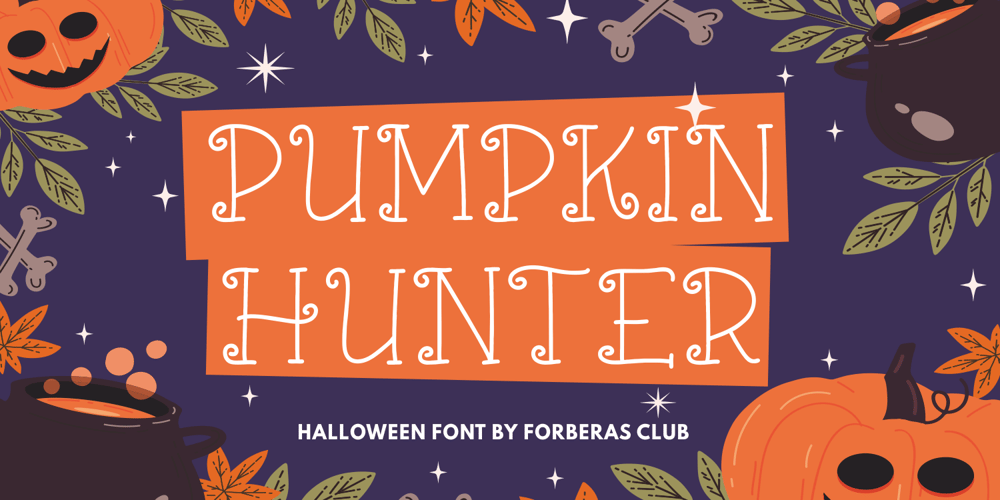
Pumpkin Hunter Font Family was designed by ANGGI HERMAWAN and published by Forberas Club. Pumpkin Hunter contains 1 styles and family package options. Introducing Pumpkin Hunter by Forberas, yet playful but still serious. You can use this as decorative material for your upcoming project.